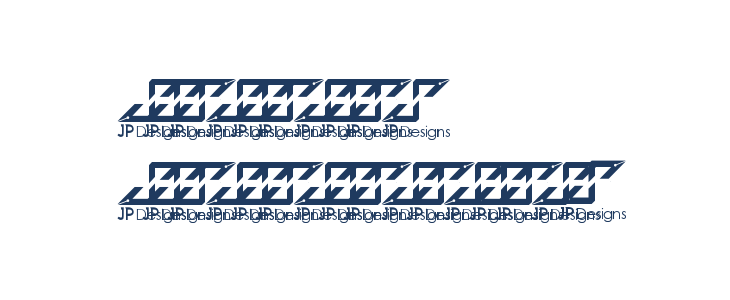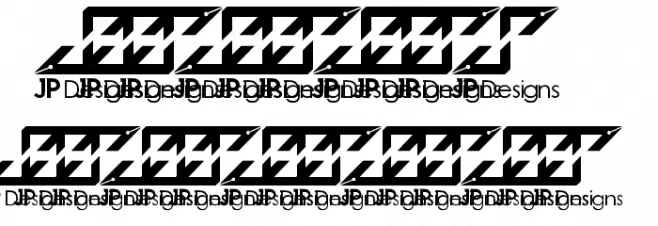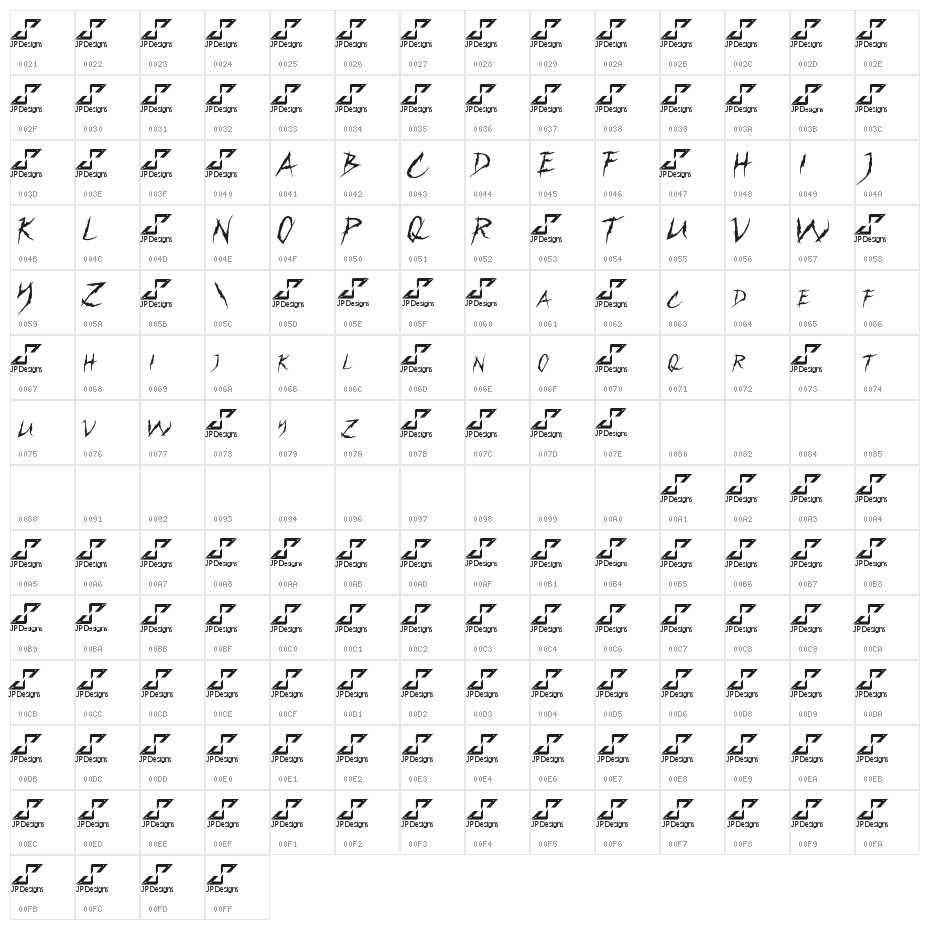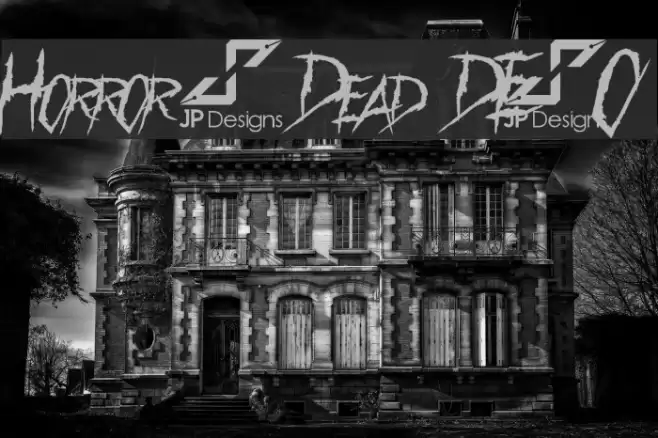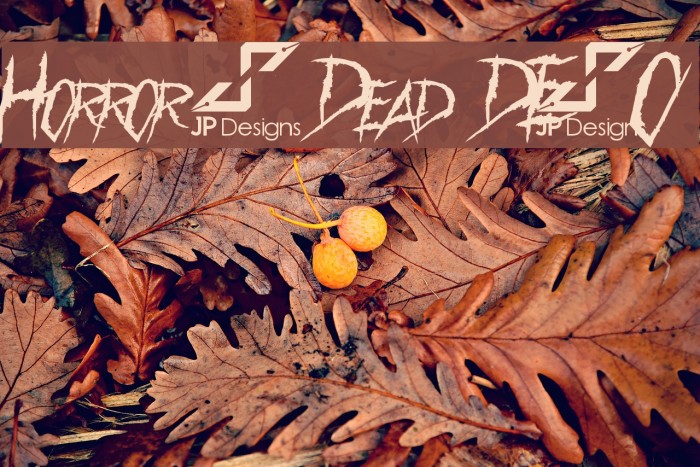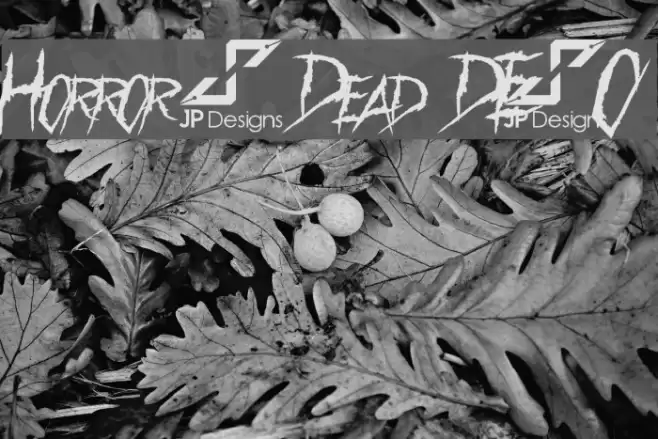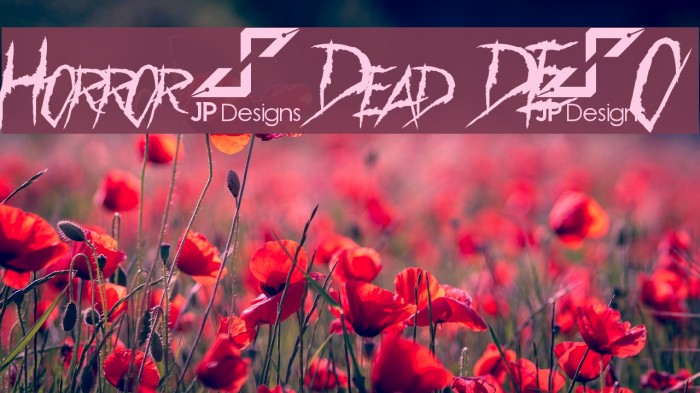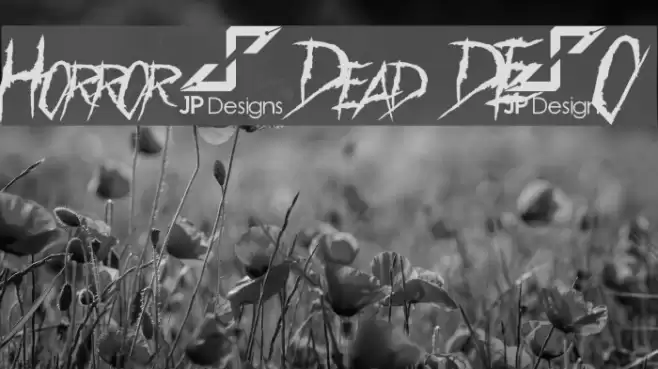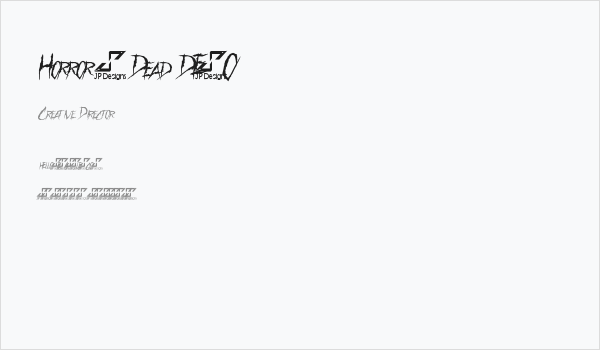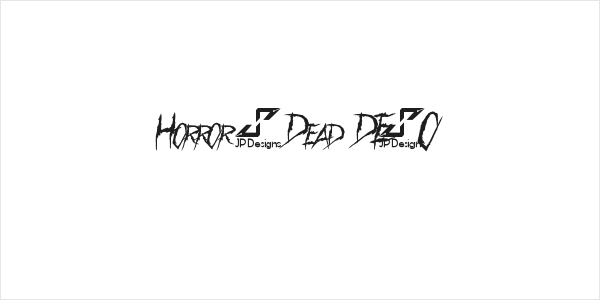
Horror & Dead DEMO Font
Horror & Dead DEMO Description
This font exudes a chilling and eerie vibe, perfect for horror-themed projects. Its jagged and irregular strokes mimic the appearance of scratches or claw marks, creating a sense of unease and tension. The letters are highly stylized, with sharp edges and varying thickness, enhancing the dramatic and unsettling effect. The font's chaotic and distressed look makes it ideal for capturing attention and conveying a sense of fear or suspense. It is particularly suited for use in horror movie posters, Halloween event flyers, or any design that aims to evoke a sense of dread and mystery.
| Overall Style | Horror, Distressed, Chaotic |
| Proposed Projects | Horror movie posters, Halloween event flyers, spooky book covers, haunted house advertisements. |